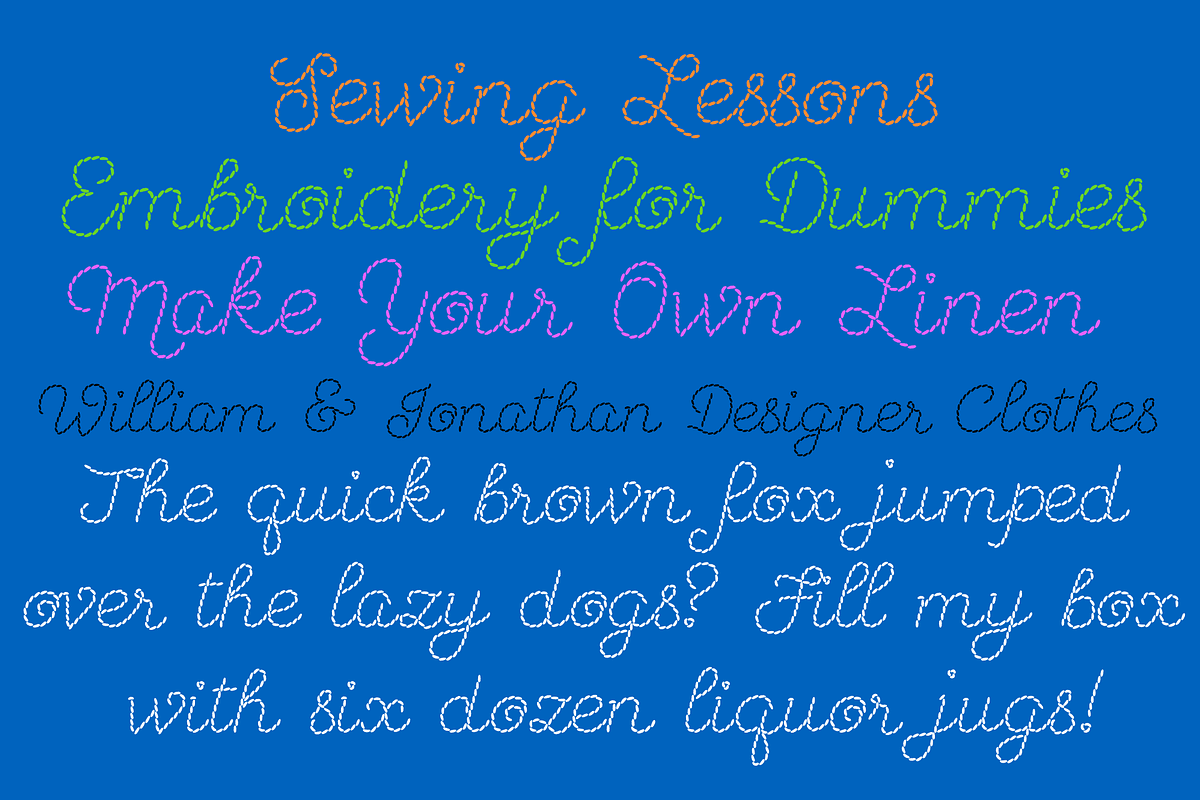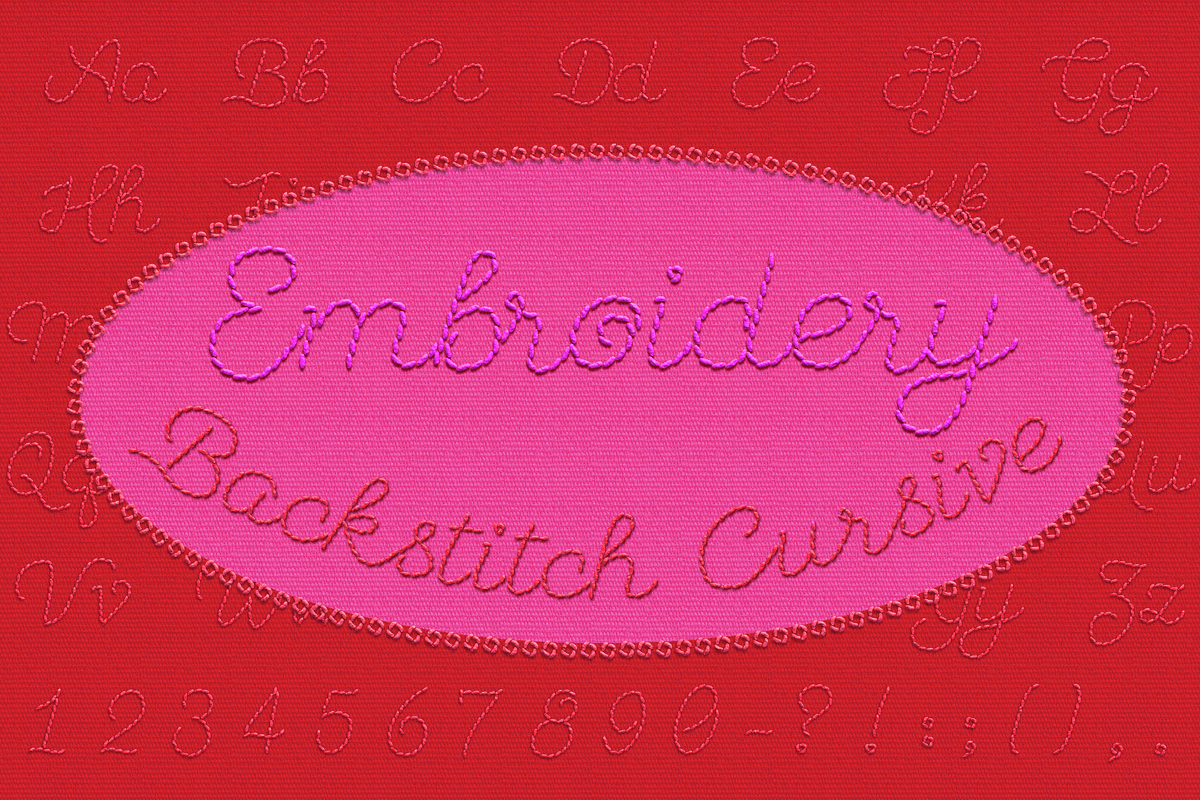
Embroidery Font- Cursive Backstitch
A font that looks like an embroidered back stitch in a decorative yet simple cursive display style. (not a machine embroidery font format) Use for sewing or craft web or print projects.